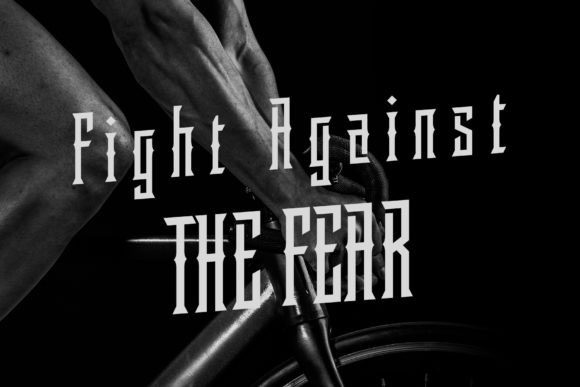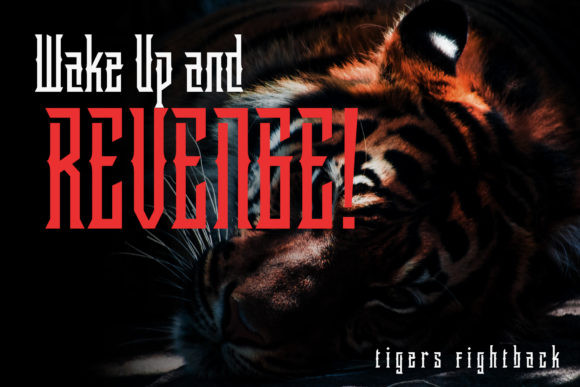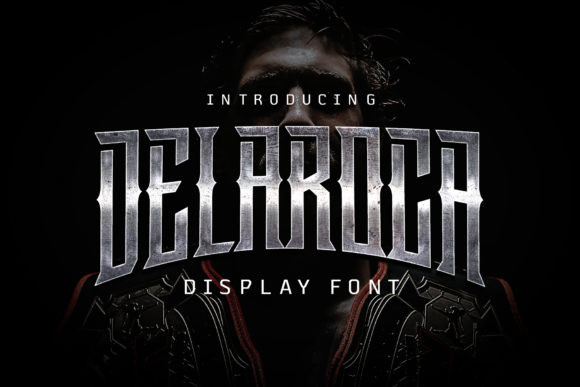
Delaroca Font
Delaroca is a display font designed with high precision of the letters. It is inspired by the gothic era and hardcore culture and is perfect for headlines and titles!